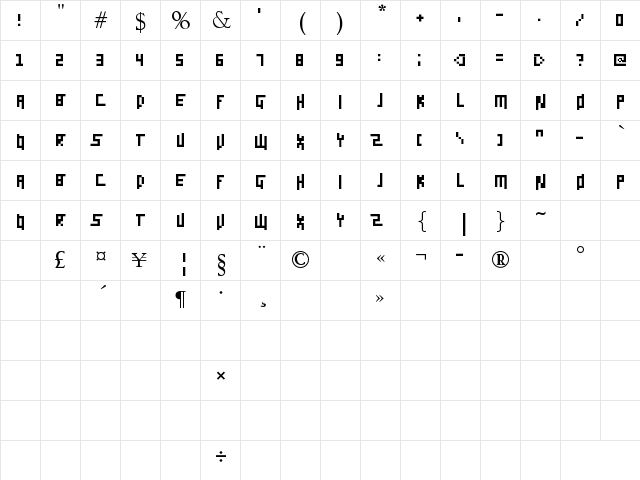
Pixel Siggy Regular
Design Context for Pixel Siggy Typeface
Pixel Siggy is rooted in pixel-grid construction, making it a natural fit for game UI, retro computing aesthetics, and digital nostalgia projects.
Well-suited to indie game interfaces, retro computing aesthetics, and pixel art-adjacent design work.
Pro Tip: Use Pixel Siggy at sizes that align with its pixel grid for the sharpest rendering — scaling to non-integer multiples can introduce unwanted blur.